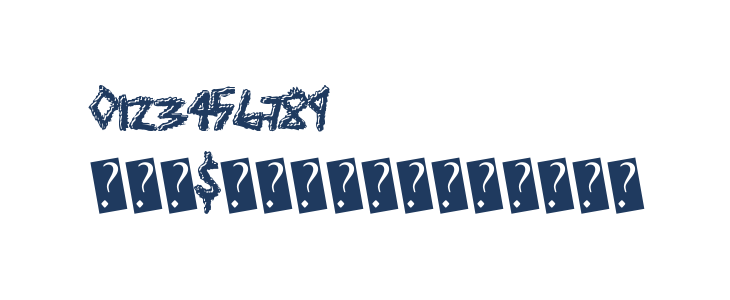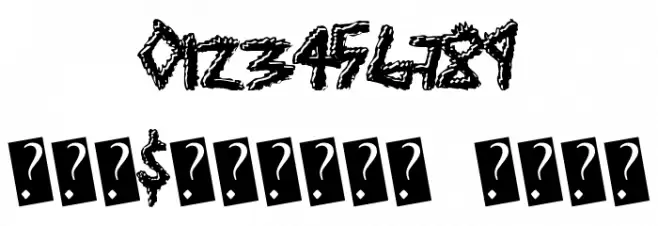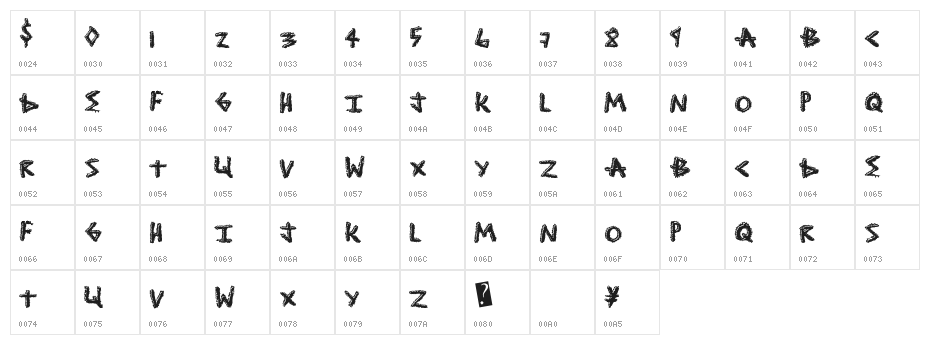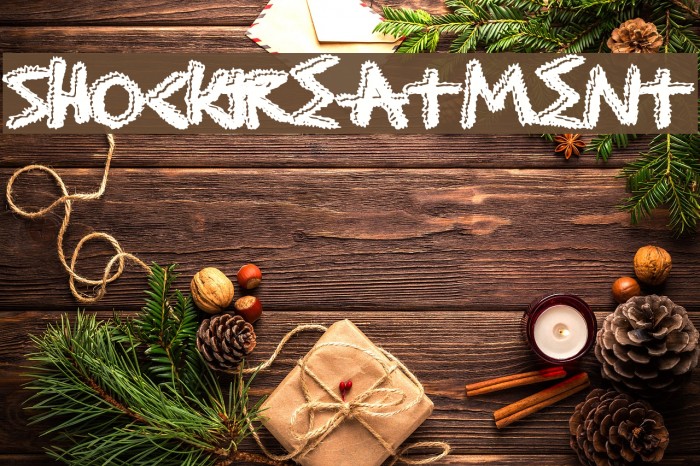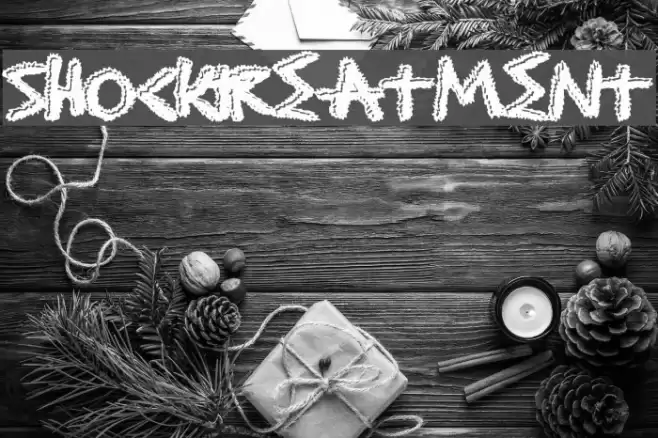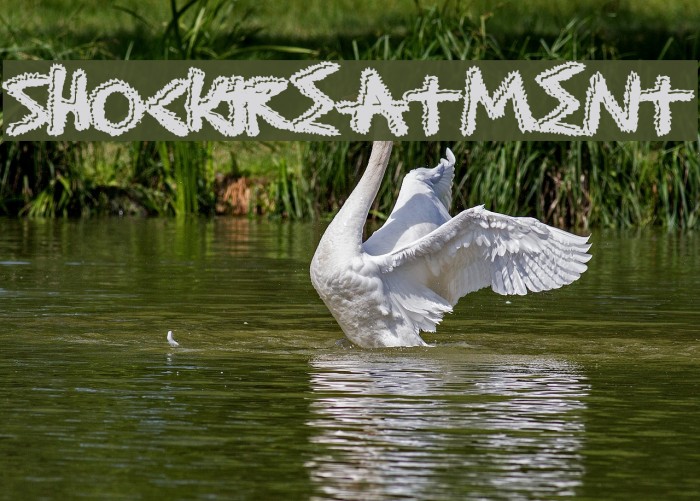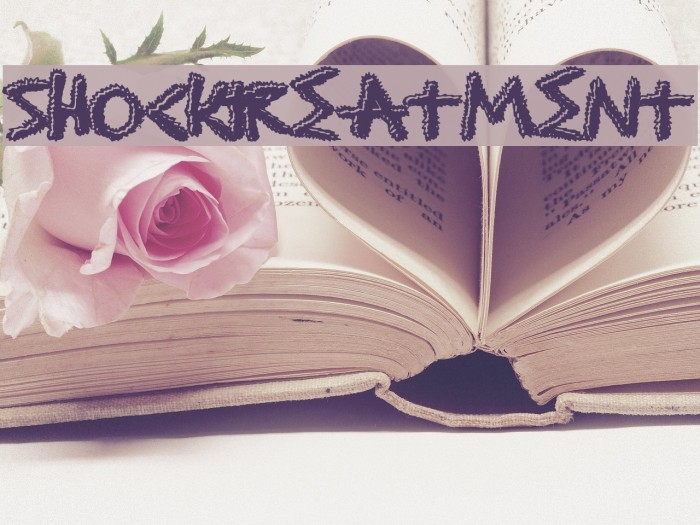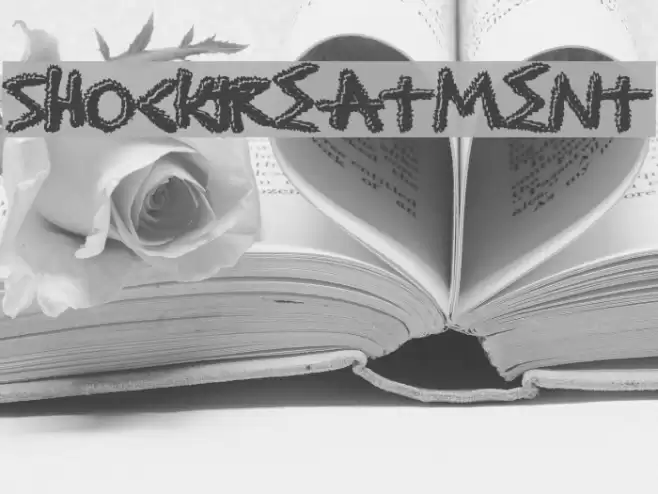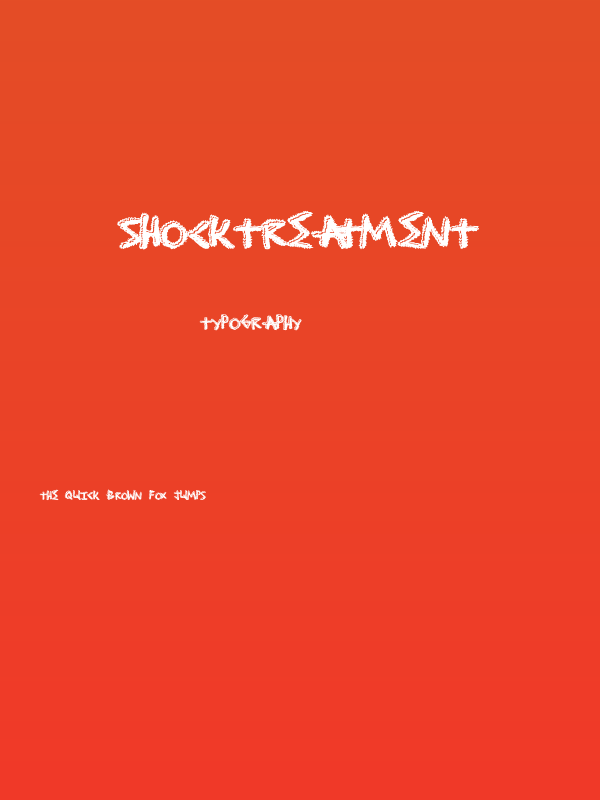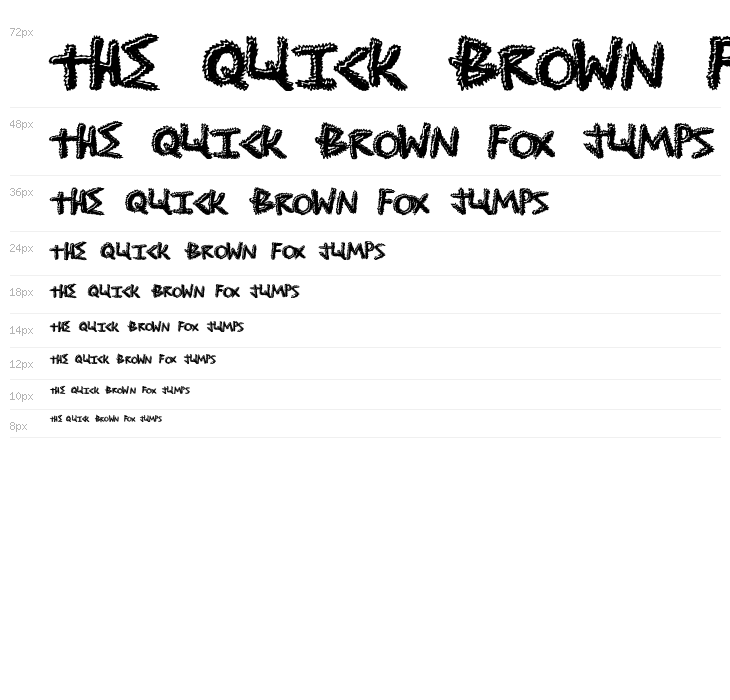
ShockTreatment Font
ShockTreatment Description
This font features a bold, jagged design that evokes a sense of chaos and energy. The characters are irregular and edgy, with a hand-drawn appearance that suggests movement and intensity. The strokes are thick and uneven, giving the font a rough, textured look. This style is reminiscent of graffiti or punk aesthetics, making it stand out with its rebellious and unconventional vibe. The uppercase and lowercase letters maintain a consistent style, while the numbers and special characters follow the same dynamic pattern. This font is ideal for projects that require a bold statement or an edgy, artistic touch.